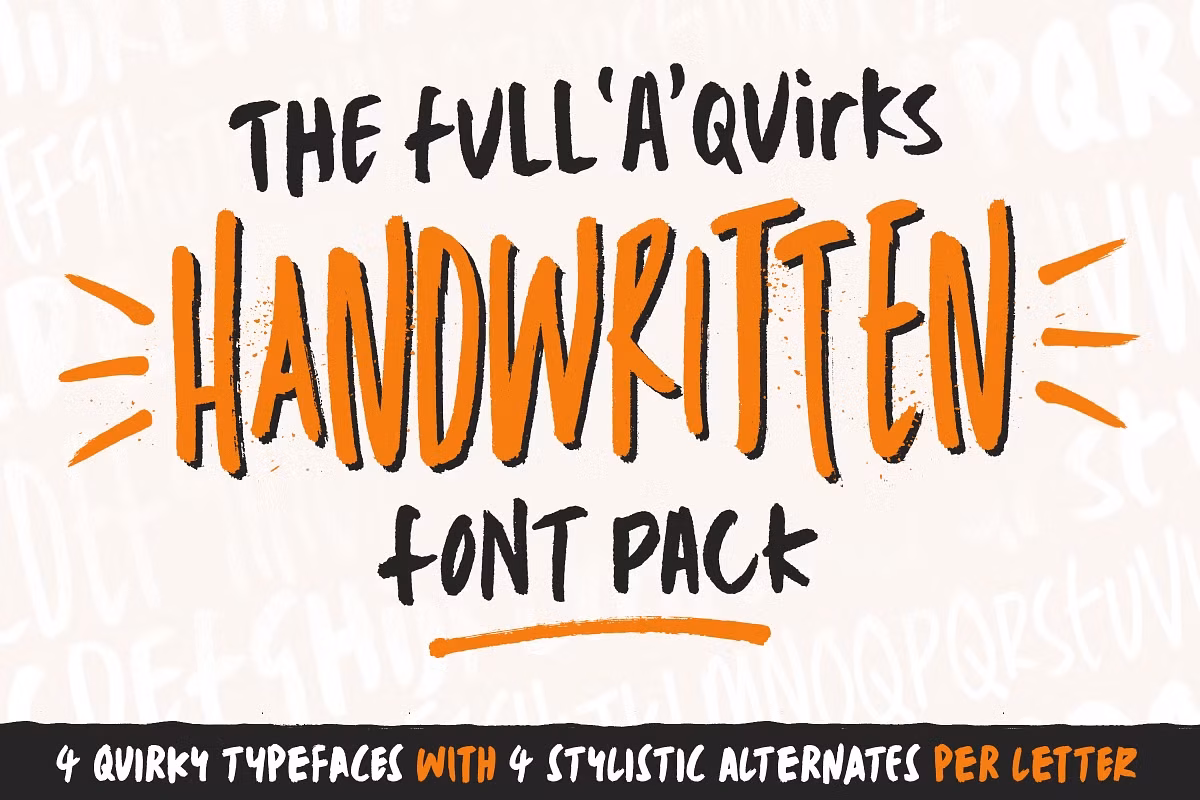
Unleash creativity with the Full'A'Quirks Handwritten Fonts Pack Free Download. This diverse collection includes a range of quirky, handwritten fonts, perfect for a variety of creative projects such as branding, invitations, social media graphics, t-shirt designs, and more.
The pack features a mix of playful scripts, rough letterforms, and casual handwriting styles that provide a fun, personal touch to your designs. Each font in the pack includes uppercase and lowercase letters, numerals, punctuation, and special characters, giving you ample flexibility to experiment with various creative layouts.
Perfect for adding a whimsical, handmade aesthetic to your work. For any commercial use, be sure to obtain the appropriate license. Download Full'A'Quirks Handwritten Fonts Pack Free Download today and elevate your typography with charming, handwritten flair.